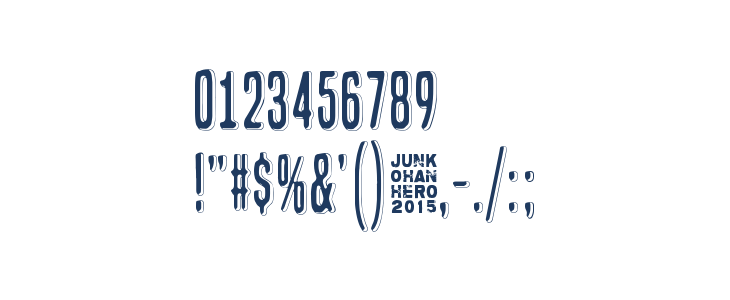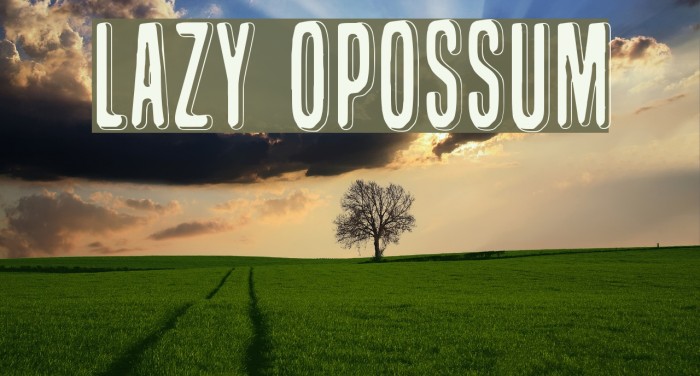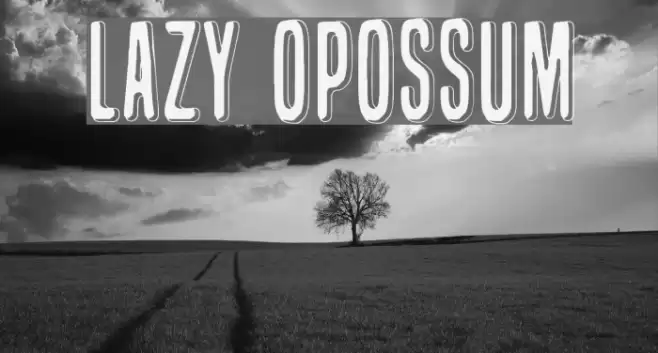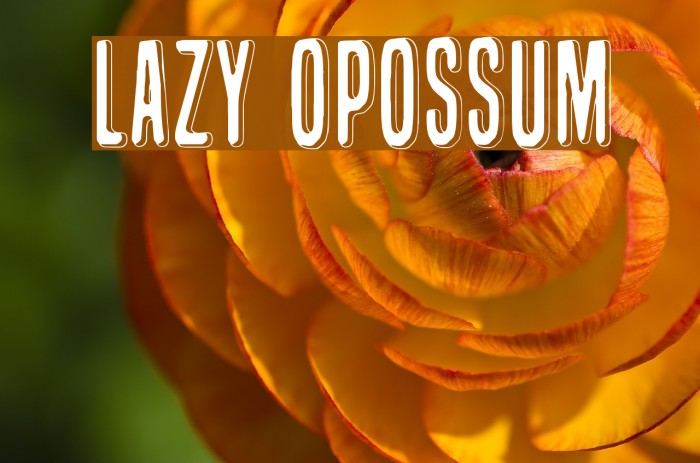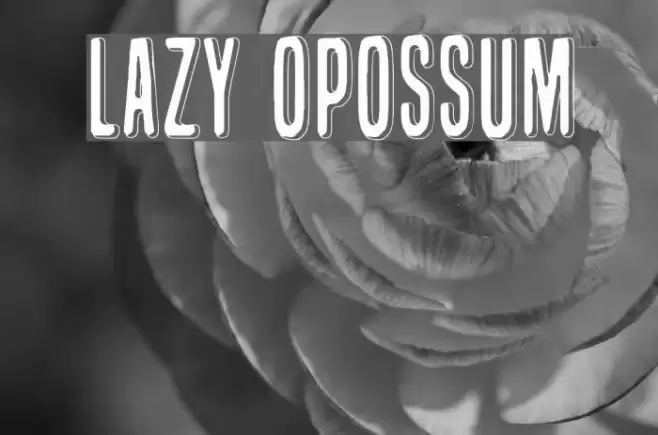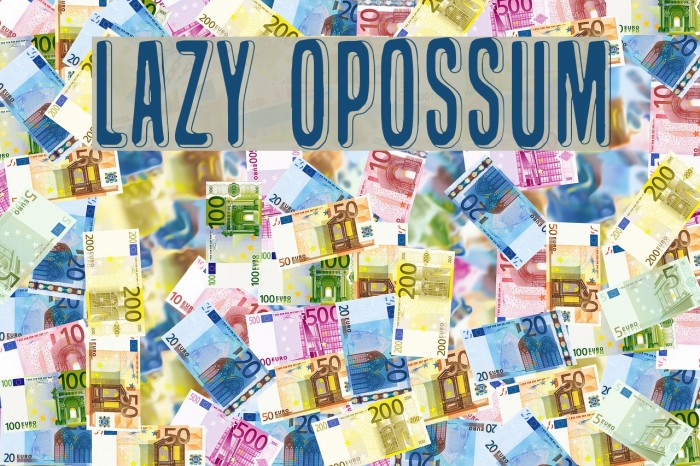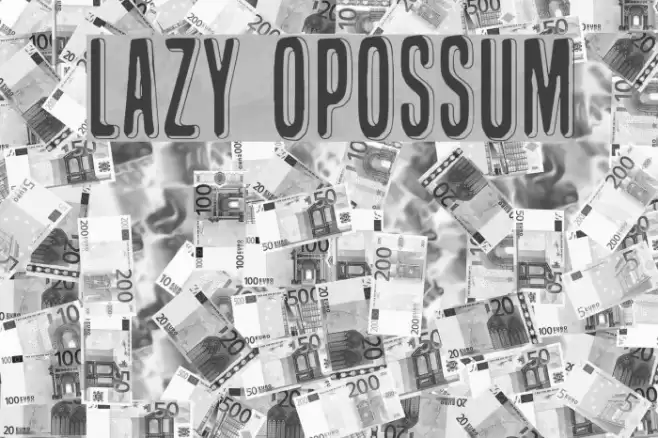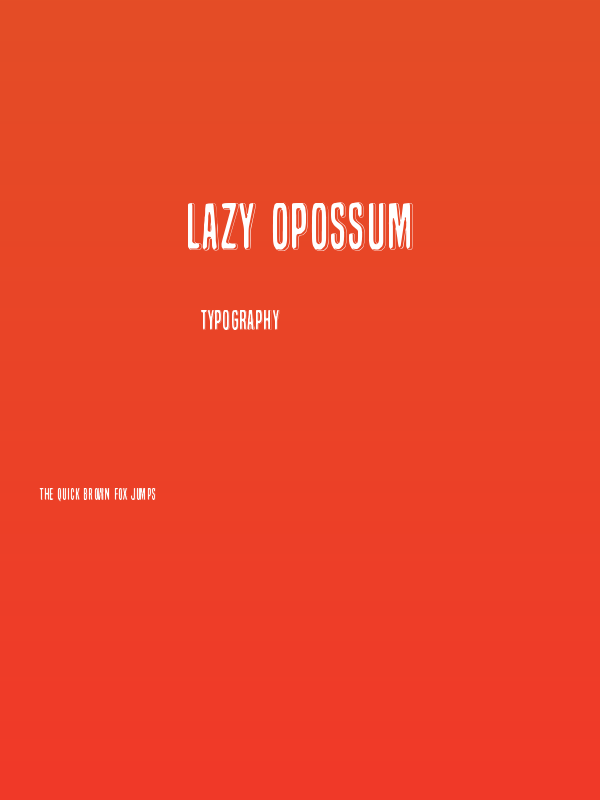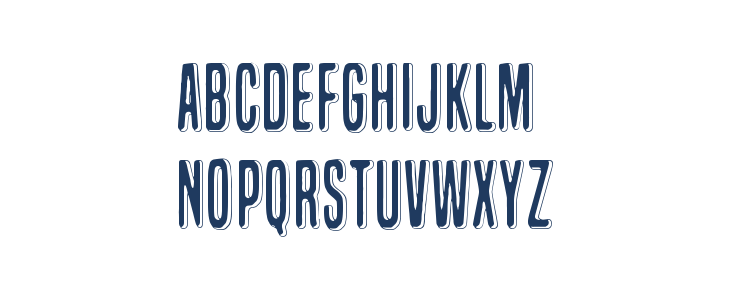
Lazy Opossum Font
Lazy Opossum Description
This font features a bold, condensed style with a strong presence, making it ideal for impactful designs. The characters exhibit a shadow effect, adding depth and a three-dimensional appearance. The uppercase and lowercase letters maintain a consistent height, contributing to a uniform look. The numerals and special characters are designed to match the boldness of the alphabet, ensuring cohesive use across various applications. The font's unique style is both modern and slightly retro, making it versatile for a range of creative projects.